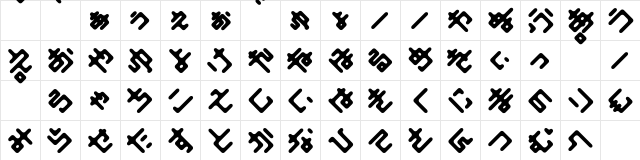
Elekitel Regular
Design Context for Elekitel Typeface
Elekitel offers clean, dependable letterforms without strong stylistic allegiance, making it a practical choice for designers who need flexibility.
Pro Tip: Pair Elekitel with a font of contrasting weight or personality to build a more expressive typographic hierarchy.